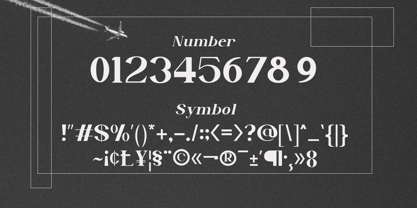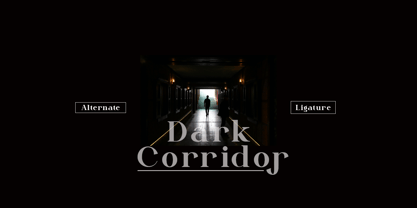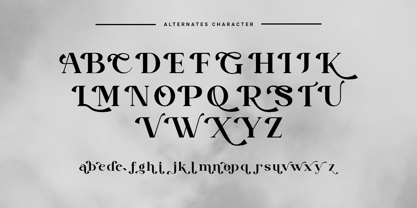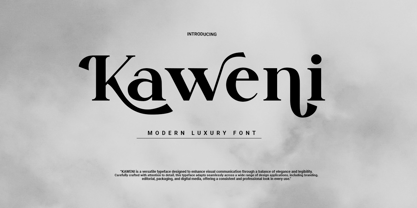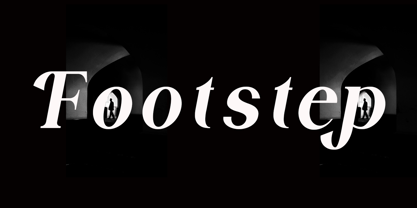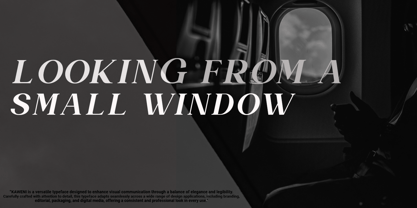
Kaweni
by Agung Sudirman
The Kaweni Font Family was designed by Agung Sudirman and published by Agung Sudirman. Kaweni contains 2 styles and family package options. More about this family
Kaweni is a modern display typeface that combines elegance with a strong artistic character. Designed to create a unique and classy visual impression, Kaweni features distinctive letterforms with smooth curves and balanced proportions, making it both attractive and comfortable to use. Kaweni's uniqueness lies in the details of each character, designed with a strong identity, especially in certain letters that appear more expressive without sacrificing readability. Stylistic touches inspired by cultural nuances add aesthetic value that distinguish it from typical display fonts. Kaweni is ideal for a variety of design needs, including logos, branding, product packaging, posters, headlines, social media content, and editorial design. Its bold yet elegant characters create a premium and memorable impression. This typeface comes with a full set of uppercase and lowercase letters, numerals, punctuation, and multilingual support. Each element is meticulously designed to maintain a balance between visual beauty and functionality, ensuring optimal use in both digital and print media. When combined, Kaweni blends perfectly with clean sans-serif fonts for a modern, minimalist look, or with serif fonts to enhance a luxurious, classic feel. This flexibility gives designers the freedom to explore a variety of visual concepts. Created with a focus on originality and detail, Kaweni is more than just a typeface; it's a creative tool for creating vibrant, characterful works. Perfect for those seeking a distinct, elegant, and memorable visual identity.